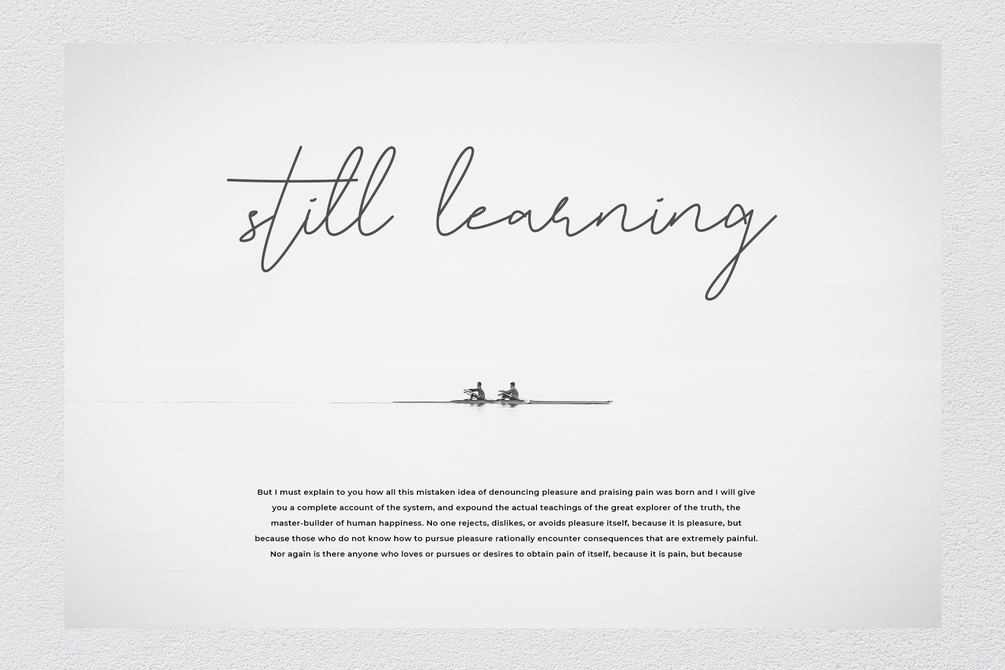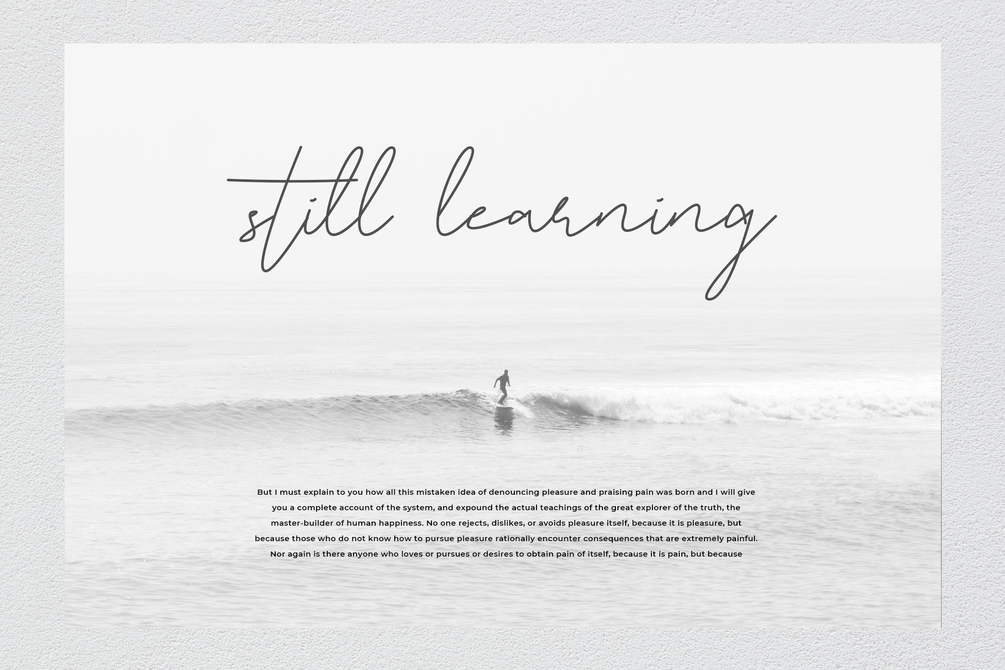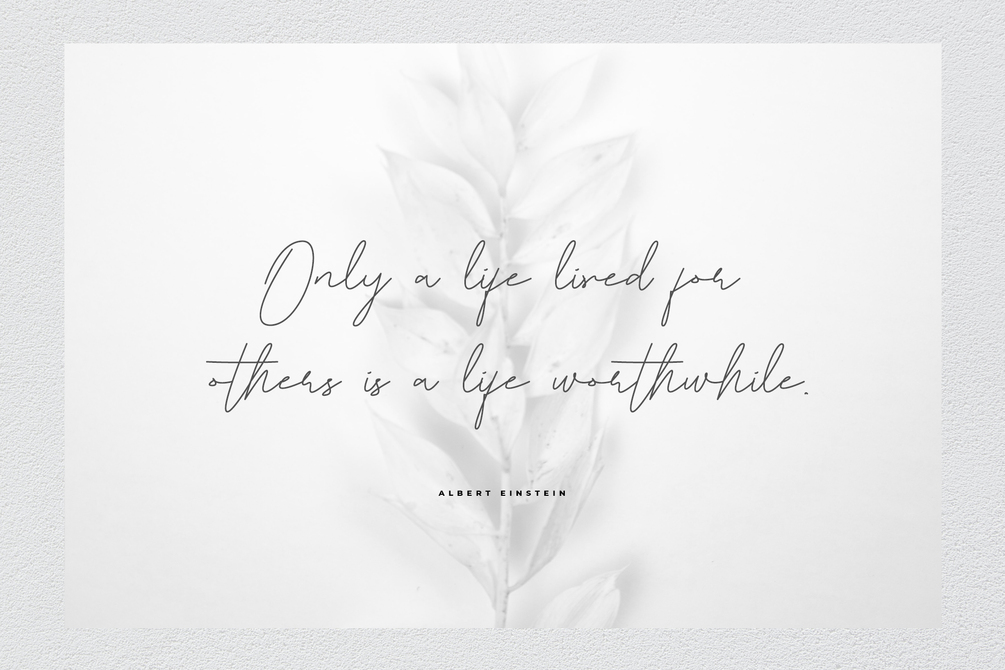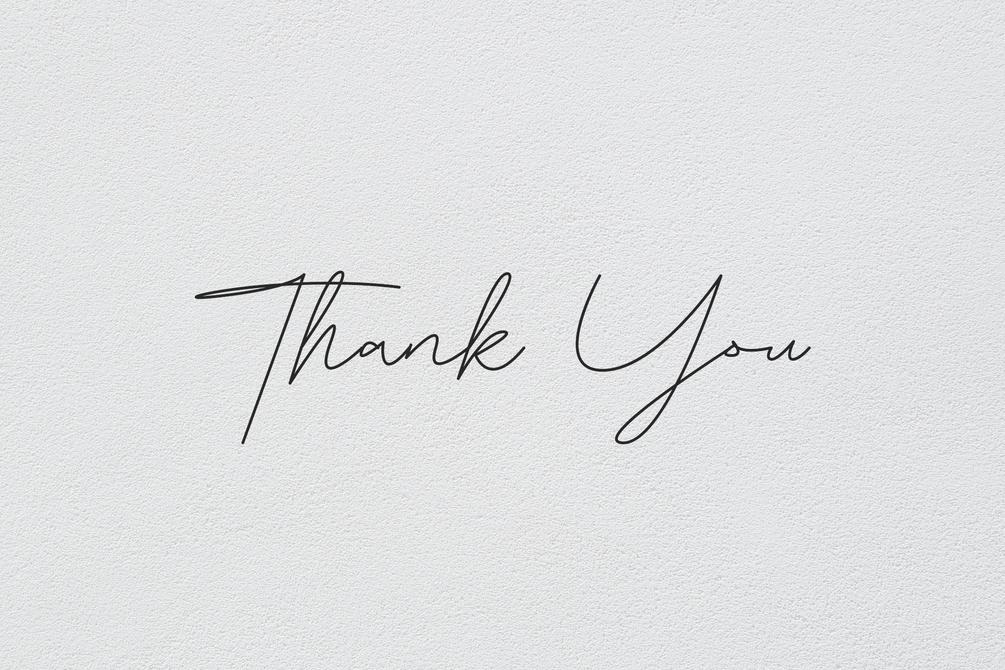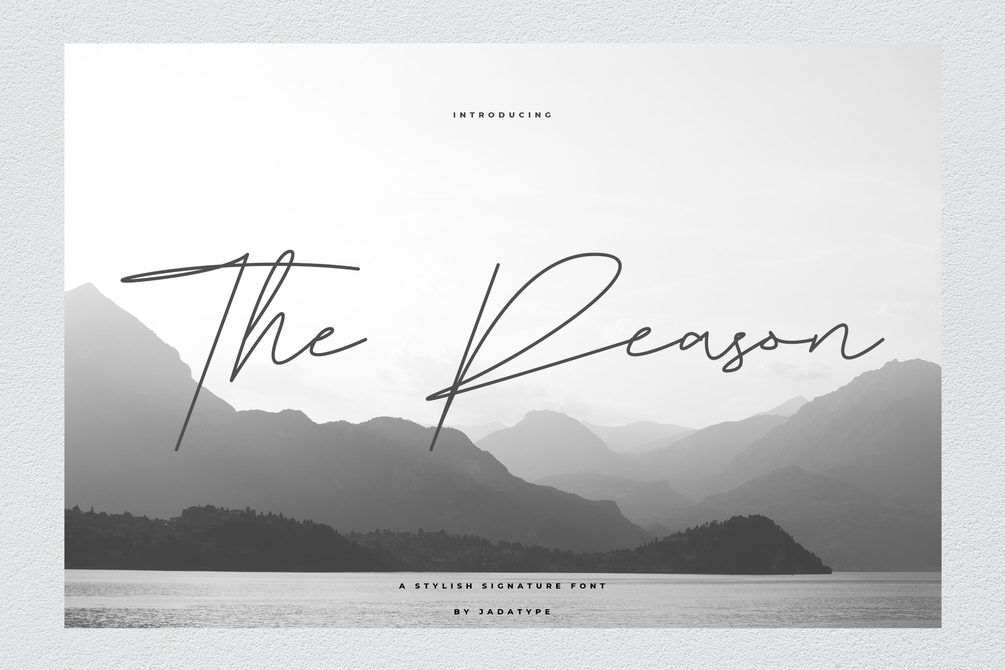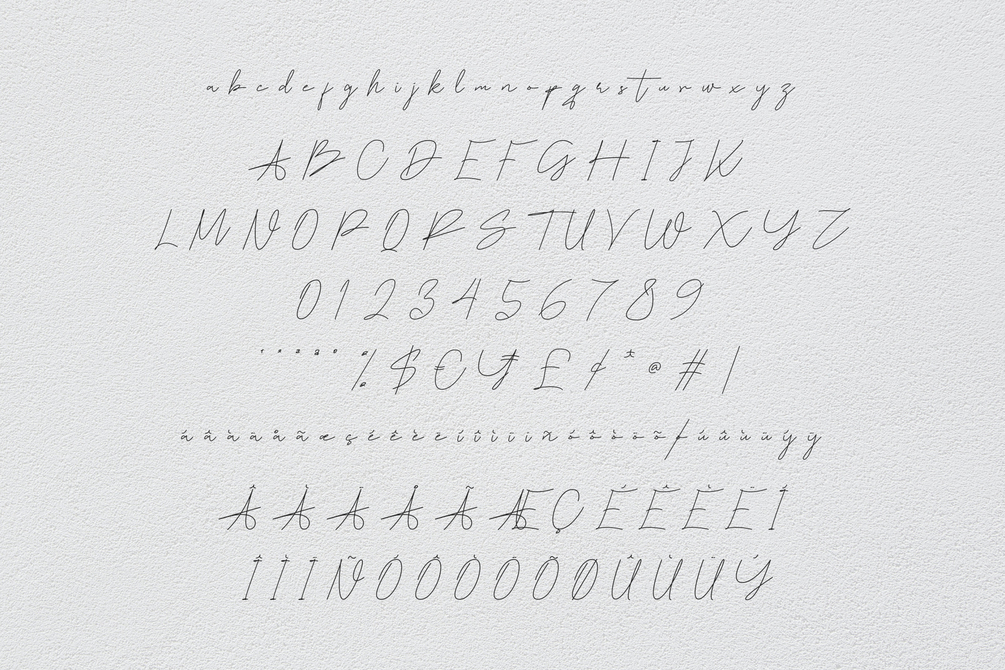
The Reason
The Reason is a script font with stylish signature line. suitable for event photography, label, social media , branding, logotype so on. contains standard English letters, numbers, punctuation, and several accents that support multilingualism.